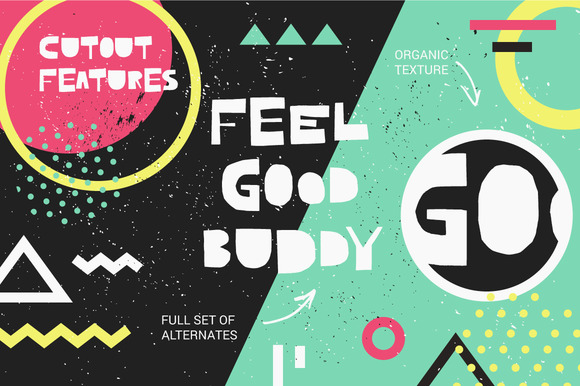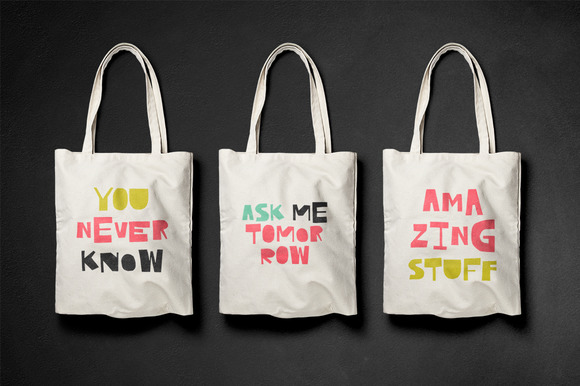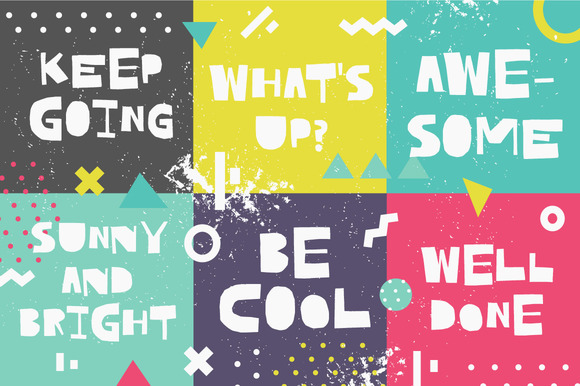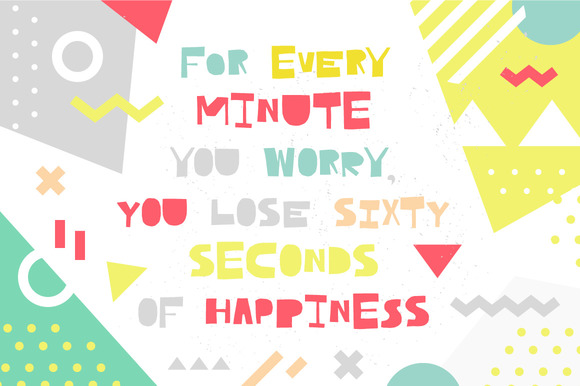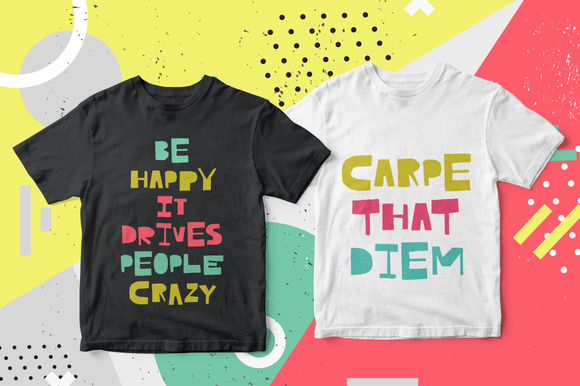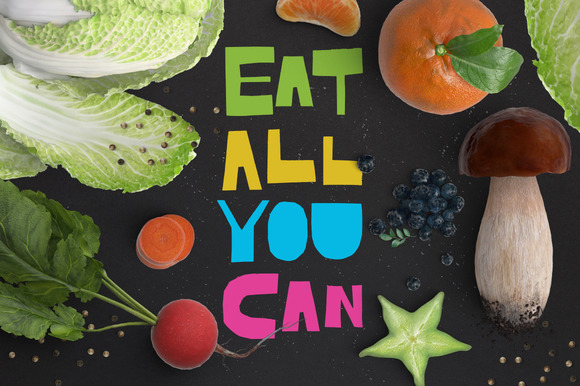
Introducing Cutout Font: A Bold Display Font with a Unique Story
Are you tired of using the same old fonts in your designs? Look no further than Cutout Font, a bold display font that’s sure to add a touch of whimsy and fun to your projects. In this article, we’ll take a closer look at the Cutout Font, its unique story, and how it can be used to elevate your designs.
The Story Behind Cutout Font
Cutout Font was created by a designer who wanted to push the boundaries of traditional typography. The font was born out of a creative experiment where the designer literally cut out all the glyphs from a piece of paper and then digitized them. This labor of love resulted in a font that’s not only visually striking but also has a unique story to tell.
What Makes Cutout Font Special?
So, what makes Cutout Font stand out from the crowd? Here are a few key features that make it a must-have for designers and crafters:
- Bold and Eye-Catching: Cutout Font is a bold display font that’s designed to grab attention. Its chunky, cut-out letters are perfect for headlines, titles, and other design elements where you want to make a statement.
- Unique Texture: The font’s cut-out texture gives it a tactile, handmade feel that’s perfect for designs that require a personal touch.
- Highly Versatile: Cutout Font can be used in a wide range of design projects, from posters and flyers to social media graphics and craft projects.
Using Cutout Font in Your Designs
Cutout Font is incredibly easy to use, even for designers who are new to working with fonts. Here are a few tips for incorporating Cutout Font into your designs:
- Pair it with a Simple Font: Cutout Font is bold and attention-grabbing, so it’s best paired with a simpler font that provides contrast and balance.
- Experiment with Colors: The cut-out texture of Cutout Font looks great in a variety of colors, from bold brights to more muted earth tones.
- Add Some Texture: To really make Cutout Font pop, try adding some texture to your design. This could be a background image, a texture overlay, or even a bit of paper texture.
Crafter’s Delight: Using Cutout Font in DIY Projects
Cutout Font isn’t just for digital designers – it’s also a great addition to any crafter’s toolkit. Here are a few ideas for using Cutout Font in DIY projects:
- Paper Crafting: Use Cutout Font to add a personal touch to your paper crafting projects, such as cards, invitations, and scrapbook pages.
- Sign Making: Cutout Font is perfect for creating eye-catching signs for parties, events, and other gatherings.
- Journaling: Add some visual interest to your journal pages with Cutout Font, either by using it as a title font or by incorporating it into your journaling.
Cutout Font is a bold display font with a unique story and a wide range of uses. Whether you’re a digital designer or a crafter, this font is sure to add a touch of whimsy and fun to your projects. With its chunky, cut-out letters and highly versatile design, Cutout Font is a must-have for anyone looking to elevate their designs and add some personality to their work.